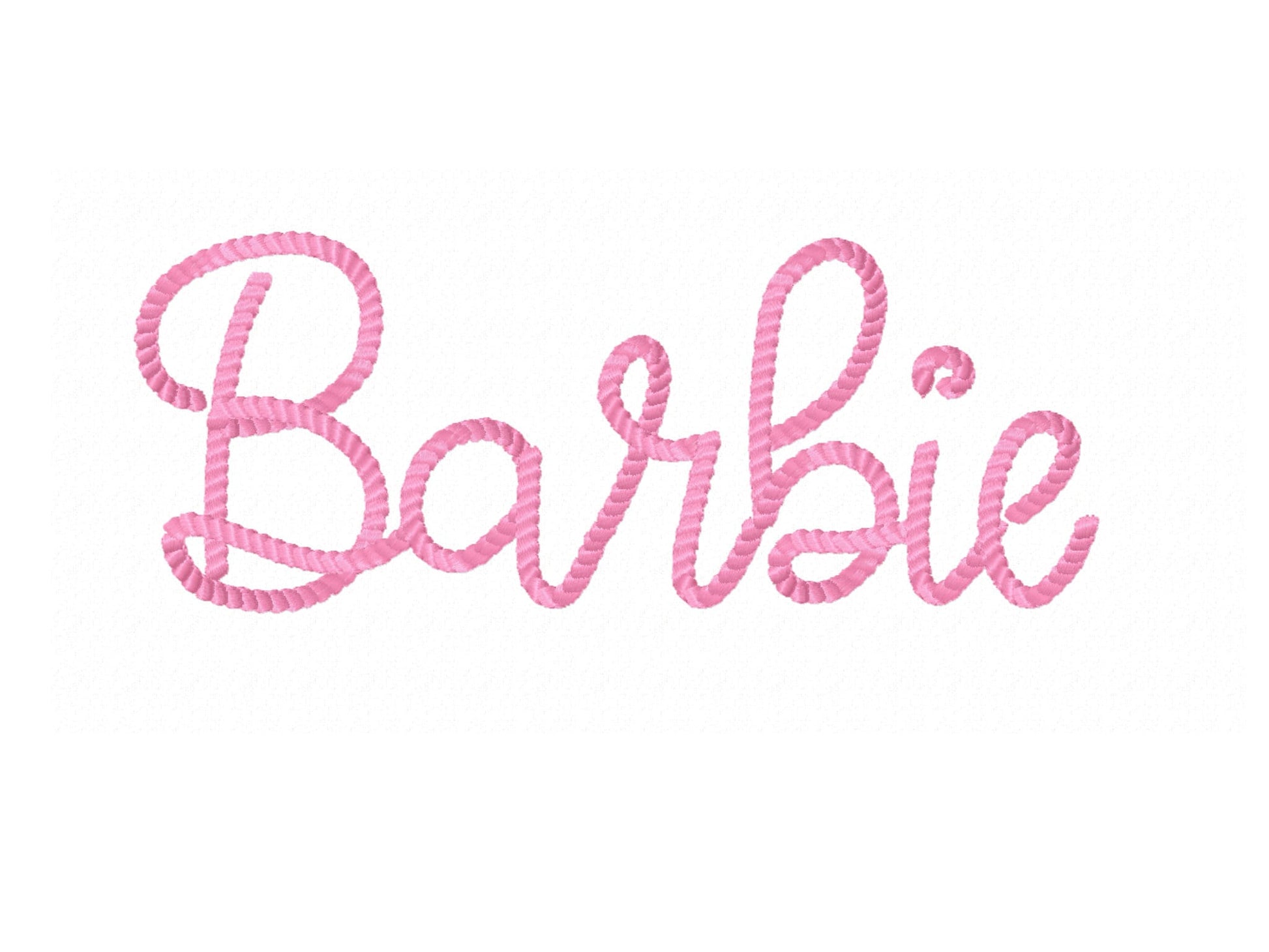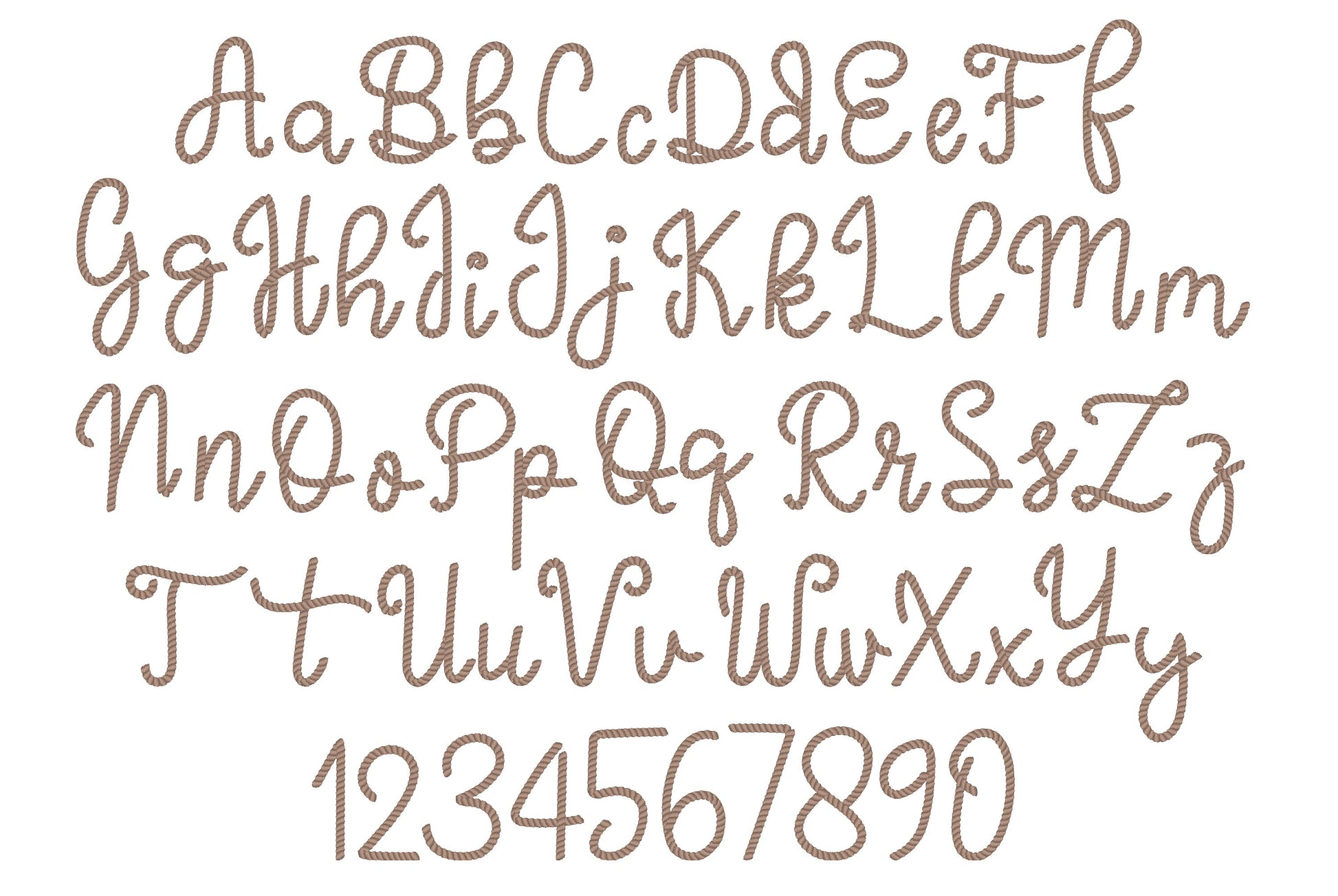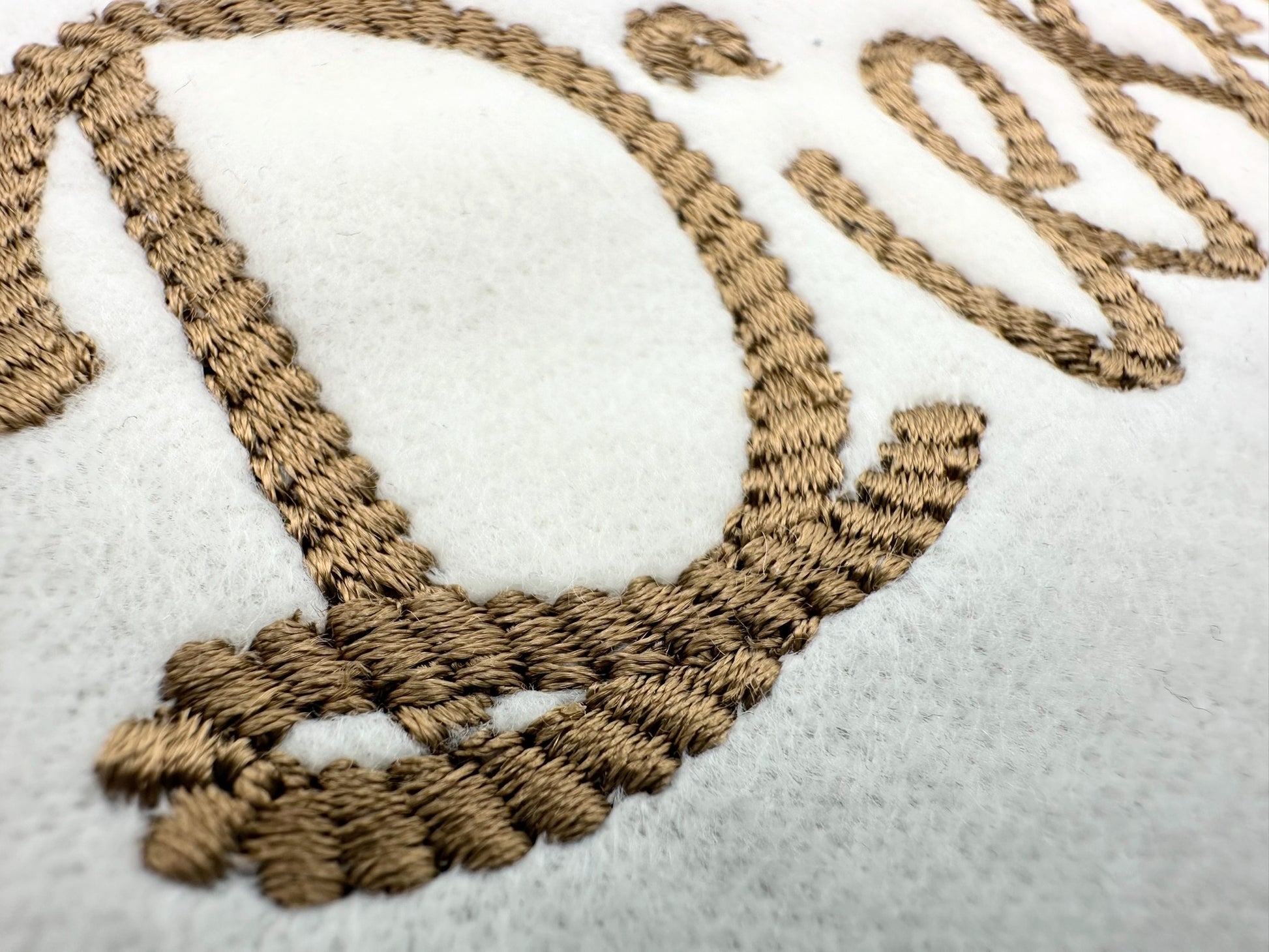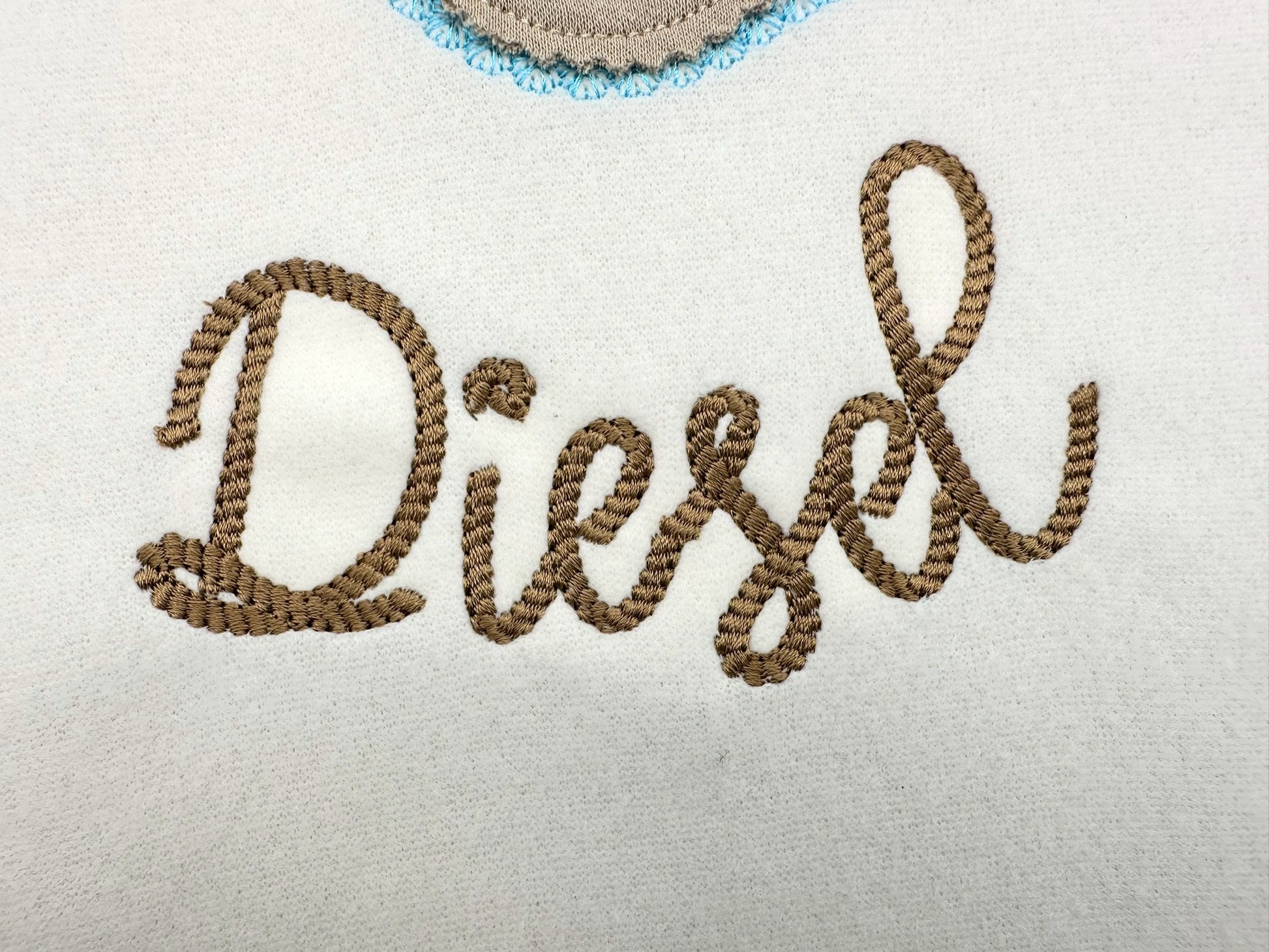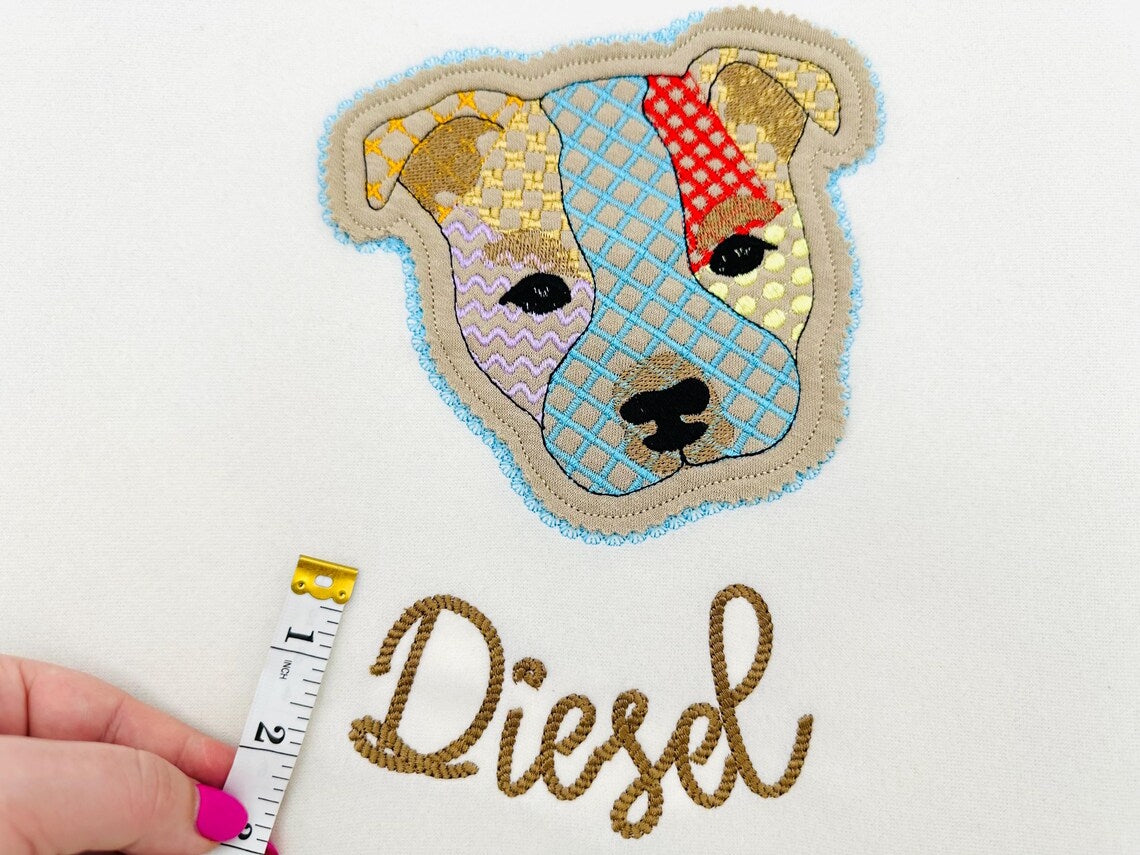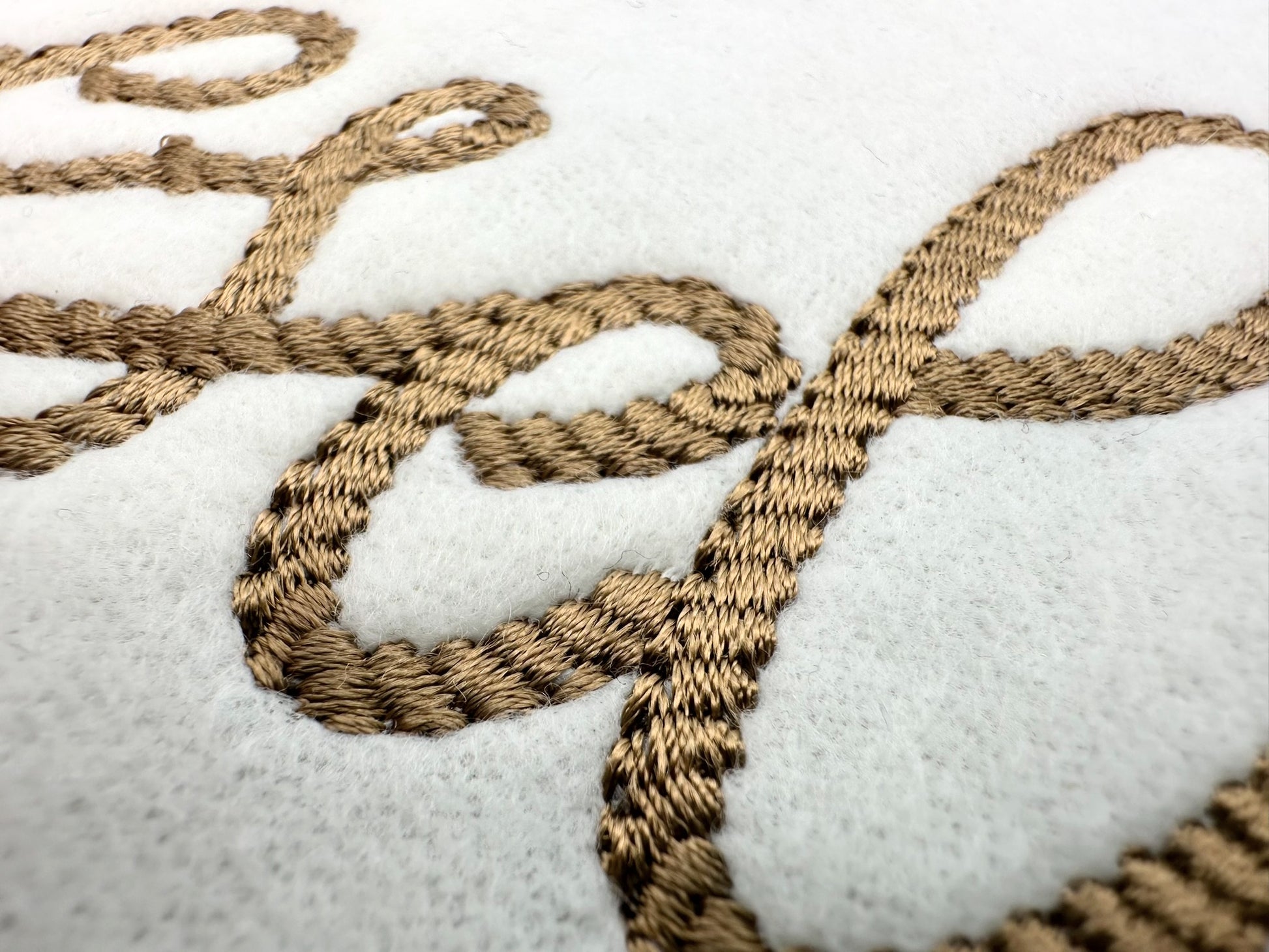
Handwritten Rope Stitch Font
Included: Uppercase A-Z, Lowercase a-z, Numbers 0-9, Punctuation
A playful handwritten rope stitch font with a lasso look. Great for cowgirl names, western shirts, hats and monograms.
Uppercase and lowercase letters, numbers 0 to 9 and a period. Five sizes: 1, 1.4, 1.7, 2 and 2.5 inches.
• Handwritten rope stitch font
• Uppercase, lowercase, numbers 0 to 9, period
• 5 sizes, 1 to 2.5 in